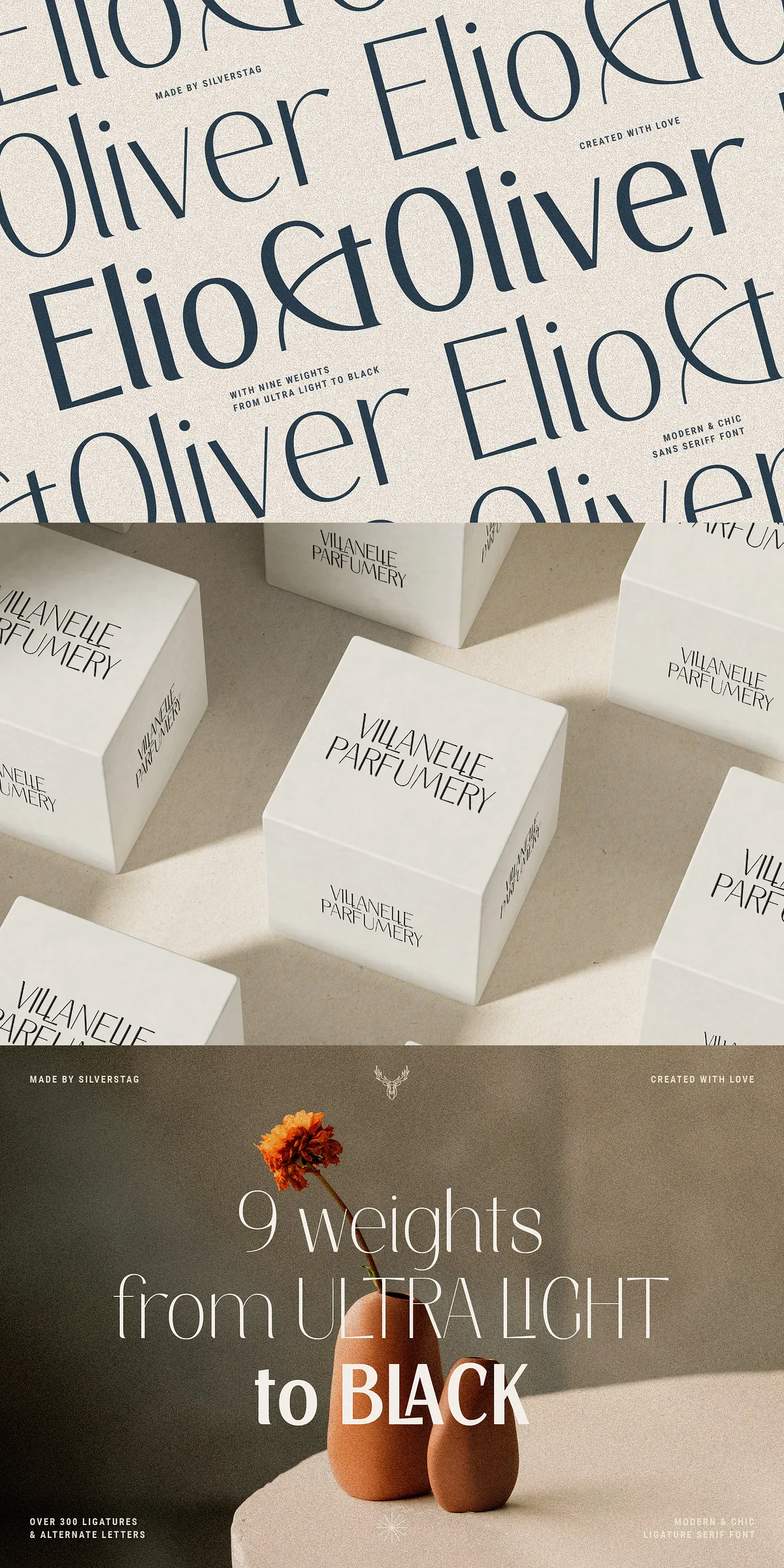
Step into a world where typography becomes storytelling. Elio & Oliver is not just a font—it’s a cultural tribute, a visual poem inspired by the lush romance of Italian summers and the emotional depth of a beloved novel. Designed for creators who value subtlety, strength, and soul, this elegant sans-serif typeface captures the essence of refinement, passion, and aesthetic grace. Every curve, stroke, and counterform is meticulously engineered to evoke the feeling of wandering through cobblestone streets of Tuscany, where every detail whispers beauty. This is not just font software—it’s a creative companion for visionaries.
A Full Spectrum of Weights for Every Design Vision
With nine distinct weights—ranging from the delicate Ultra Light to the commanding Black—Elio & Oliver gives you the full emotional range of a high-performance typeface. Whether you’re crafting a serene editorial spread, designing a bold luxury brand logo, or setting a powerful headline in a digital interface, this font family adapts with authority. Use the lighter weights for elegant body text and refined captions, and unleash the heavier variations for high-impact headlines and branding statements. The dynamic contrast between weights creates a compelling visual rhythm, making your layouts not just readable—but unforgettable.
Why the Weight Range Matters
- Ultra Light & Light: Perfect for premium magazine covers, subtle logos, or minimalist signage.
- Regular & Medium: Ideal for body text in digital publications and high-end websites.
- Semibold & Bold: Build powerful headlines and call-to-action elements that command attention.
- Extra Bold & Black: Transform your branding with dramatic, statement-ready typography.
Elevate Your Typography with Over 30 Artistic Ligatures
Typography is about more than letters—it’s about rhythm. Elio & Oliver includes over 30 custom ligatures, specially designed to enhance flow and legibility. From elegant fi and fl combinations to expressive ff, ffi, and ffl sequences, these subtle enhancements create a sense of fluid motion, making your text feel alive and purposeful. Whether you’re working with serif alternatives or clean sans-serifs, the ligatures ensure your text breathes with a sense of natural harmony and sophistication.
Designed for Global Communication: Full Multilingual Support
Whether you’re launching a brand across Europe, producing multilingual content, or creating art that speaks to the world, Elio & Oliver delivers. The font supports a comprehensive range of international characters, including:
- Extended Latin (àáâãäåæçèéêëîïñòóôöøùúûüÿ)
- German umlauts (ä, ö, ü)
- French accents (é, è, ê, ë)
- Spanish tildes (ñ, á, é, í, ó, ú)
- Polish, Czech, and other Central European characters
This ensures your designs remain beautiful and technically accurate, no matter where your audience is.
Don’t just use a font—express a feeling. With Elio & Oliver, every project becomes a canvas for emotion, elegance, and storytelling. From editorial design to premium branding, from digital campaigns to print masterpieces, this font family empowers you to create with confidence, clarity, and undeniable style.
Discover Elio & Oliver—where elegance is not just a look, but a legacy.